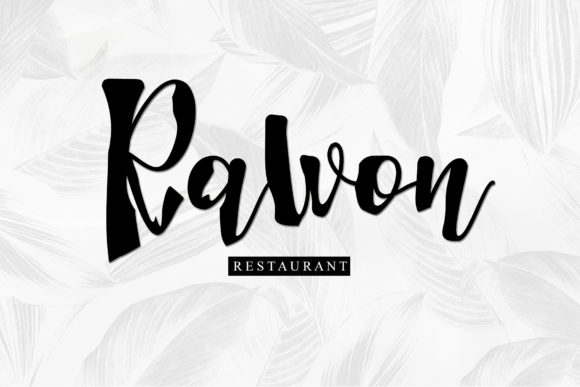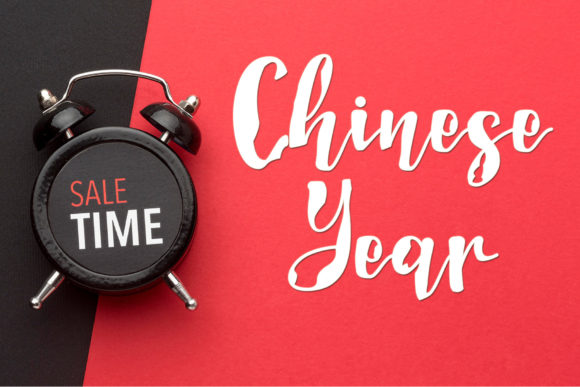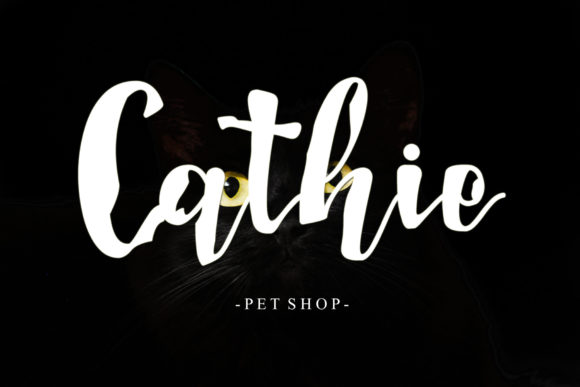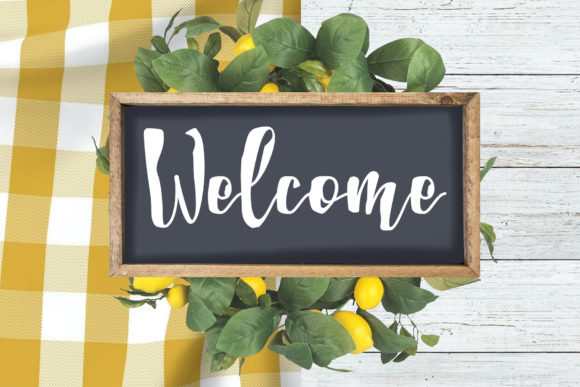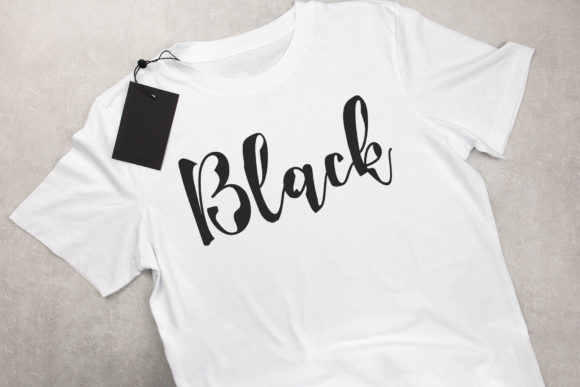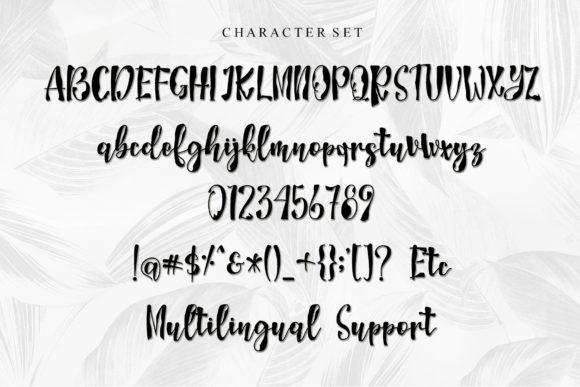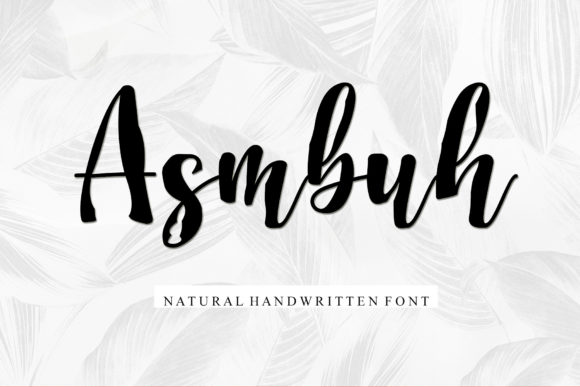
The Asmbuh Font: A Dazzling Script to Elevate Your Designs
I’ll never forget the time I was working on a project for a client who wanted a elegant, high-end look. I had spent hours browsing through font libraries, but nothing seemed quite right. That was until I stumbled upon the Asmbuh font. ✨ This stunning script font has been a game-changer for my designs, and I’m excited to share my experience with you.
An Honest Review of Asmbuh Font
- ✨ Exquisite craftsmanship: Asmbuh is meticulously designed with intricate details that make it stand out from other script fonts.
- 💫 Highly versatile: Asmbuh can be used for a wide range of projects, from wedding invitations to branding and packaging.
While Asmbuh is an exceptional font, there are a few minor things to keep in mind: 🤔
- ⚠️ Some characters may require manual kerning: As with any script font, you may need to adjust the kerning of certain characters to achieve optimal results.
- ⚠️ Not suitable for body text: Asmbuh is best used for headings, titles, and short paragraphs. Its elegant, cursive nature makes it less suitable for longer blocks of text.
The Backstory of Asmbuh Font
Asmbuh is the brainchild of a talented type designer who wanted to create a font that would evoke the elegance and sophistication of traditional calligraphy. 💫 The designer spent countless hours perfecting the font, pouring over every detail to ensure that it was nothing short of exceptional.
Q: Is Asmbuh suitable for body text?
A: No, Asmbuh is best used for headings, titles, and short paragraphs. Its elegant, cursive nature makes it less suitable for longer blocks of text.